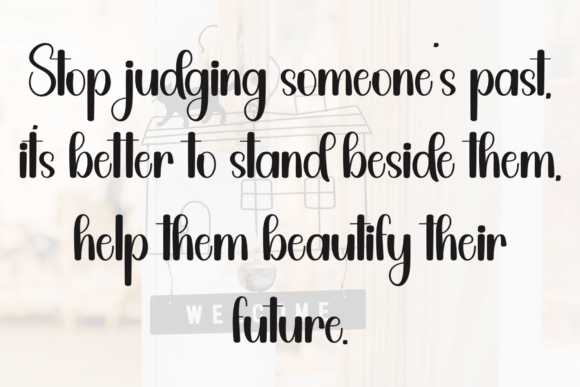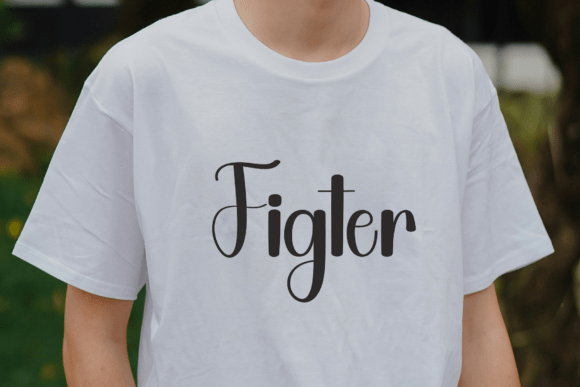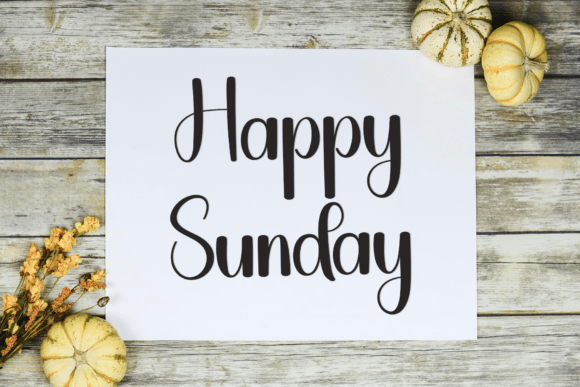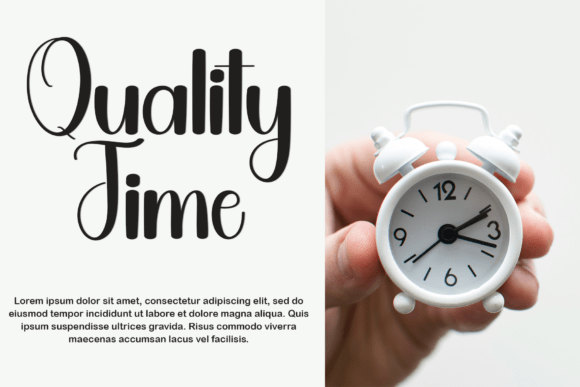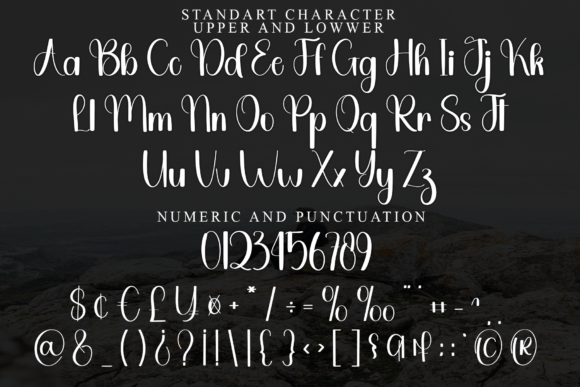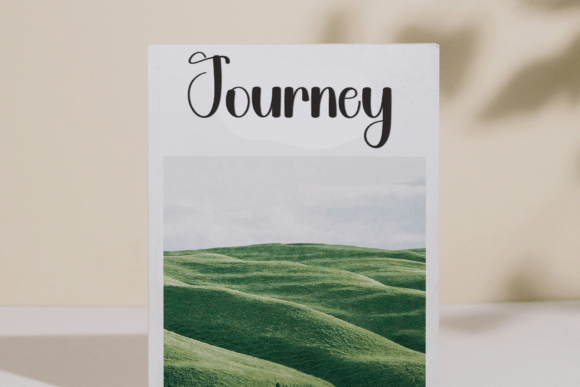
Introducing Birthday Vintage Font: The Perfect Addition to Your Holiday Designs
Are you looking for a font that captures the essence of the holiday season? Do you want to add a touch of magic to your designs, greeting cards, and gift tags? Look no further than the Birthday Vintage Font, a festive and merry typeface that’s sure to bring a smile to everyone’s face. In this article, we’ll explore the features and benefits of this beautiful font, and show you how it can elevate your holiday-themed projects to the next level.
Birthday Vintage Font is a decorative font that’s specifically designed to evoke the spirit of the holiday season. With its whimsical flair and enchanting elements, this font is perfect for adding a touch of nostalgia and cheer to your designs. Whether you’re creating greeting cards, gift tags, or holiday-themed projects, this font is sure to bring a festive ambiance to your words.
Key Features of Birthday Vintage Font
- Decorative Elements: Birthday Vintage Font features decorative elements that are sure to add a touch of magic to your designs. From intricate swirls to festive symbols, this font has everything you need to create stunning holiday-themed projects.
- Whimsical Flair: This font has a whimsical flair that’s sure to bring a smile to everyone’s face. Its playful and cheerful design makes it perfect for creating greeting cards, gift tags, and other holiday-themed projects.
- PUA Encoded: Birthday Vintage Font is PUA encoded, which means you can access all of the amazing glyphs and ligatures with ease. This makes it easy to use and customize the font to suit your needs.
Birthday Vintage Font is perfect for designers and crafters who want to add a touch of magic to their holiday-themed projects. Whether you’re creating digital designs or handmade crafts, this font is sure to bring a festive ambiance to your work. Here are just a few ways you can use this font:
- Greeting Cards: Use Birthday Vintage Font to create stunning holiday greeting cards that are sure to impress your friends and family.
- Gift Tags: Add a touch of magic to your gift tags with this beautiful font. It’s perfect for creating custom gift tags that are sure to make your gifts stand out.
- Holiday-Themed Projects: Use Birthday Vintage Font to create stunning holiday-themed projects, such as posters, flyers, and social media graphics.
Tips for Using Birthday Vintage Font
Here are a few tips for using Birthday Vintage Font in your designs:
- Experiment with Different Sizes: Try using different font sizes to create visual interest in your designs. You can use larger font sizes for headings and smaller font sizes for body text.
- Combine with Other Fonts: Birthday Vintage Font pairs well with other fonts, so feel free to experiment with different font combinations to create a unique look.
- Use Decorative Elements: Don’t be afraid to use the decorative elements in Birthday Vintage Font to add a touch of magic to your designs.
Birthday Vintage Font is a beautiful and festive typeface that’s perfect for adding a touch of magic to your holiday-themed projects. With its decorative elements, whimsical flair, and PUA encoding, this font is sure to bring a cheerful and nostalgic ambiance to your words. Whether you’re a designer or crafter, this font is sure to become a favorite in your collection. So why wait? Download Birthday Vintage Font today and start creating stunning holiday-themed projects that are sure to impress!